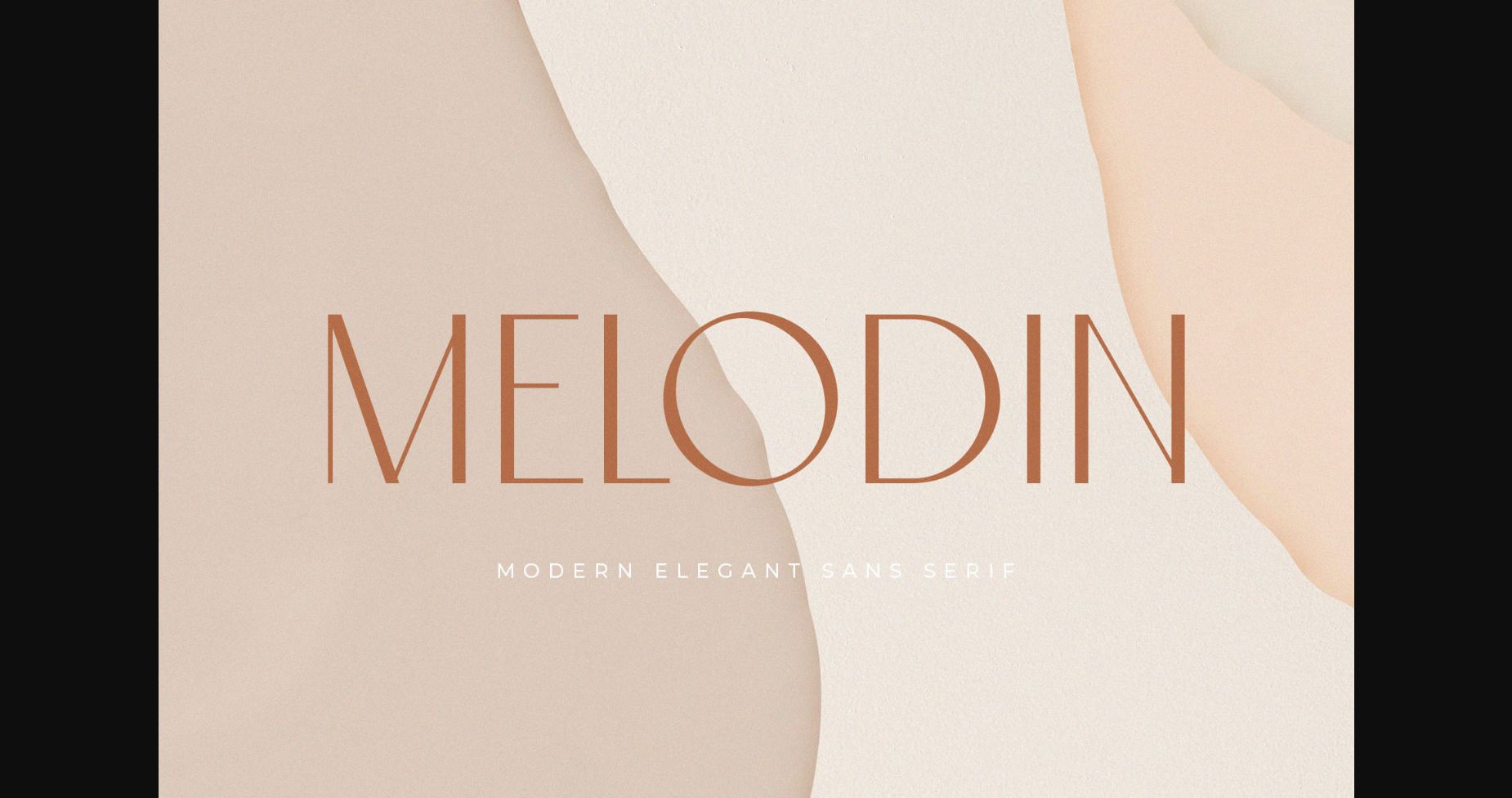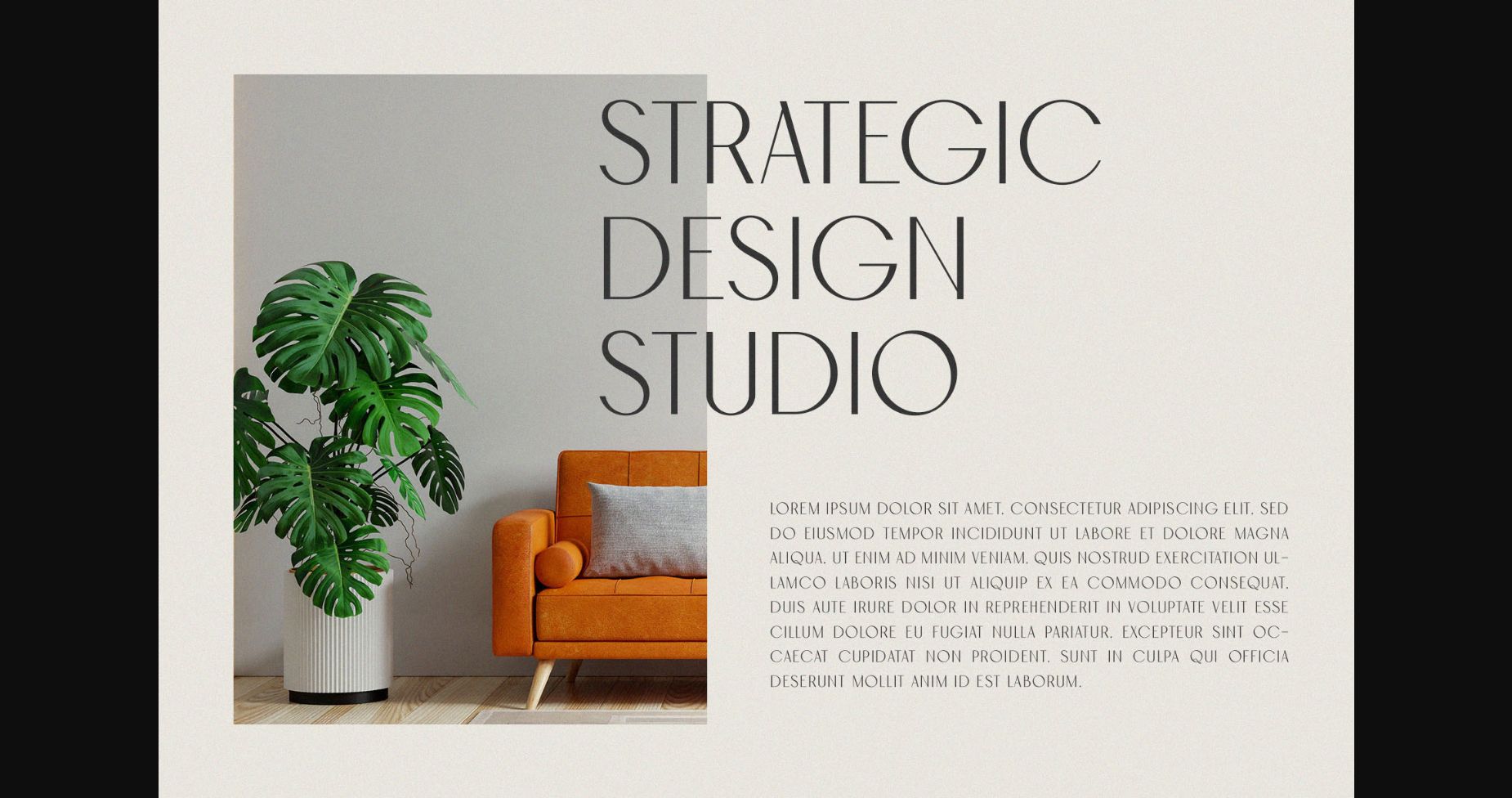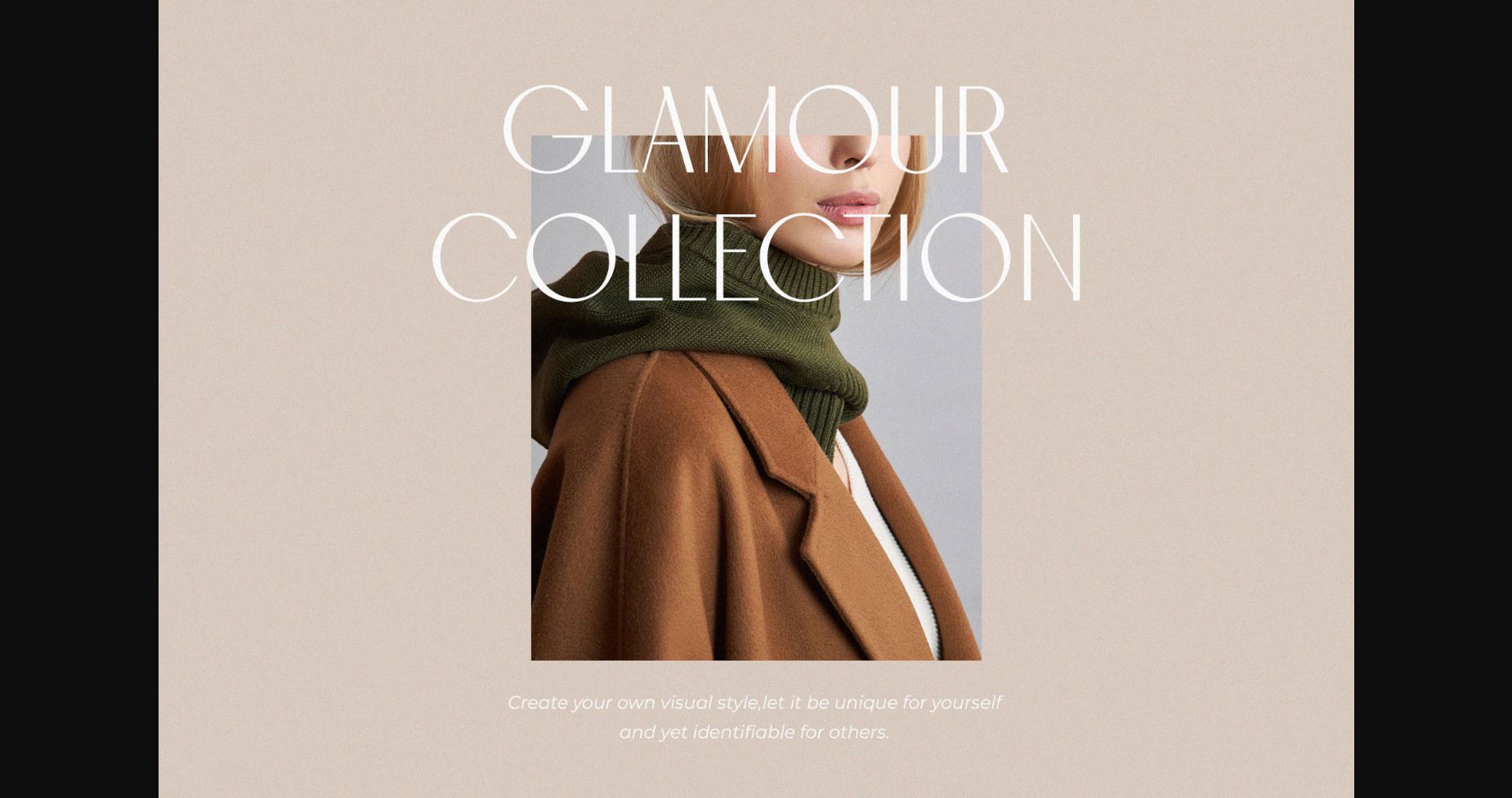
About Melodin Font
Melodin is a sophisticated, charming sans serif font with a fashionable touch. Specially designed for luxury, elegant, feminine projects, this font is perfectly suitable for creating modern, chic designs.